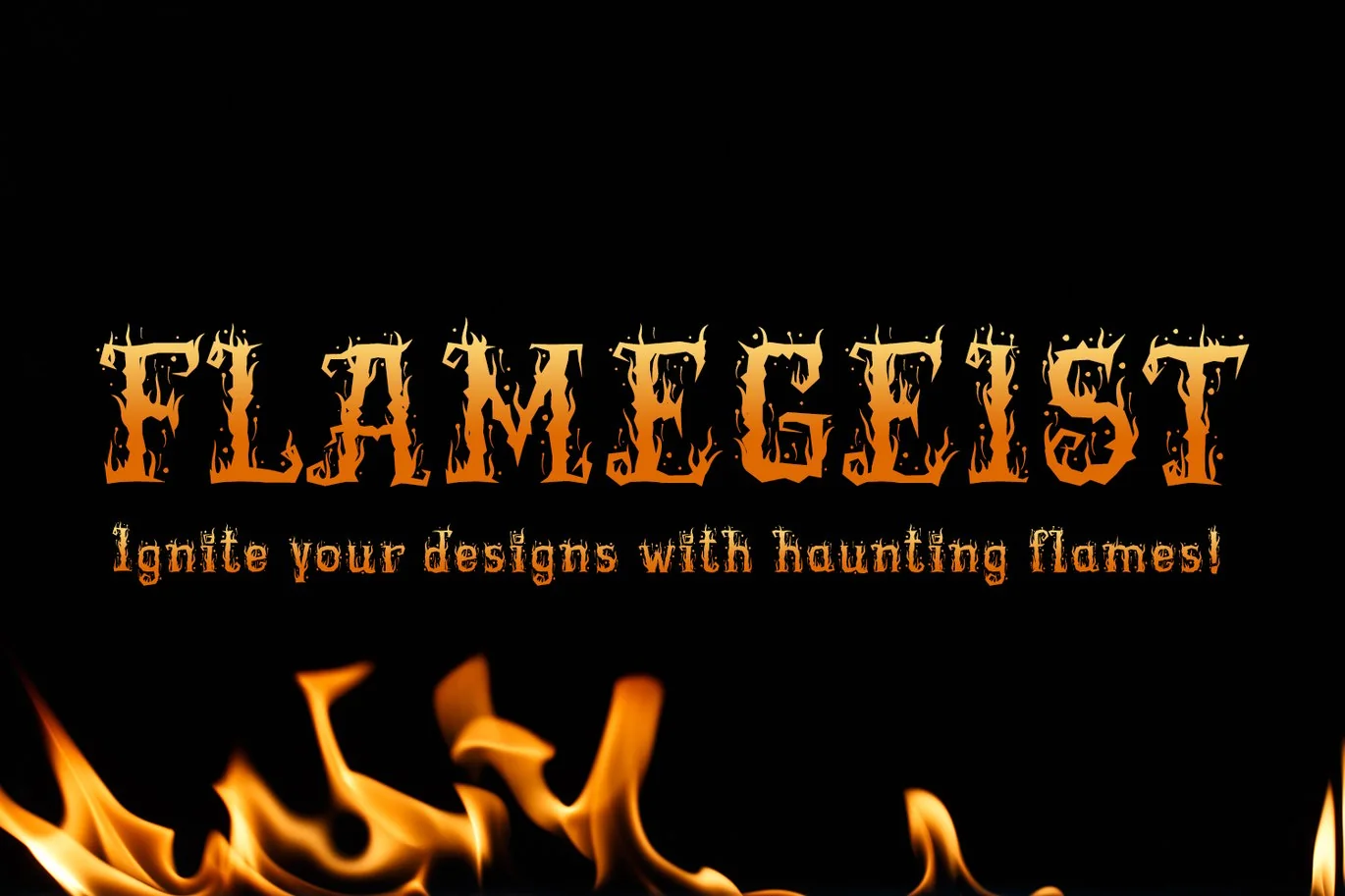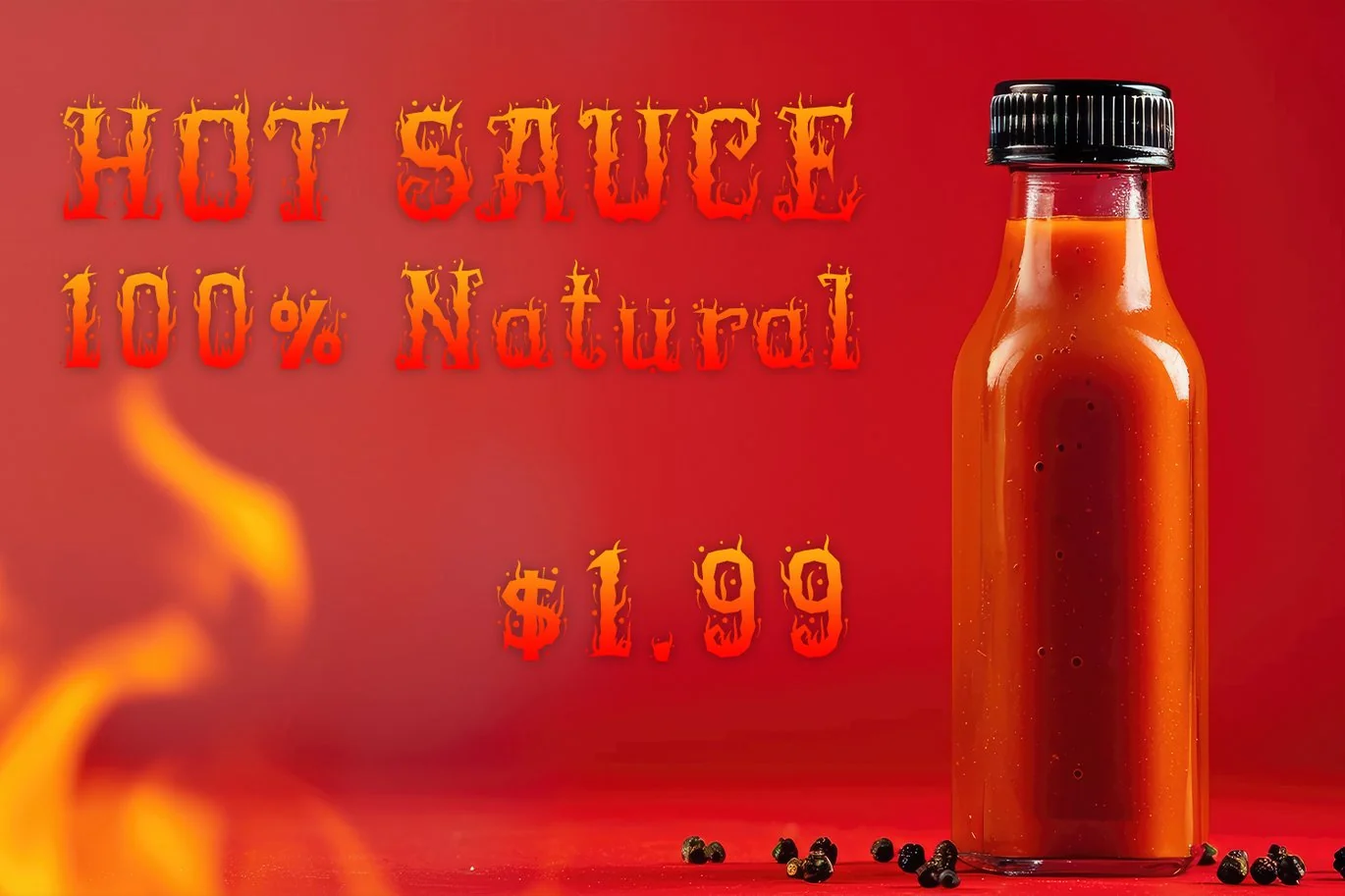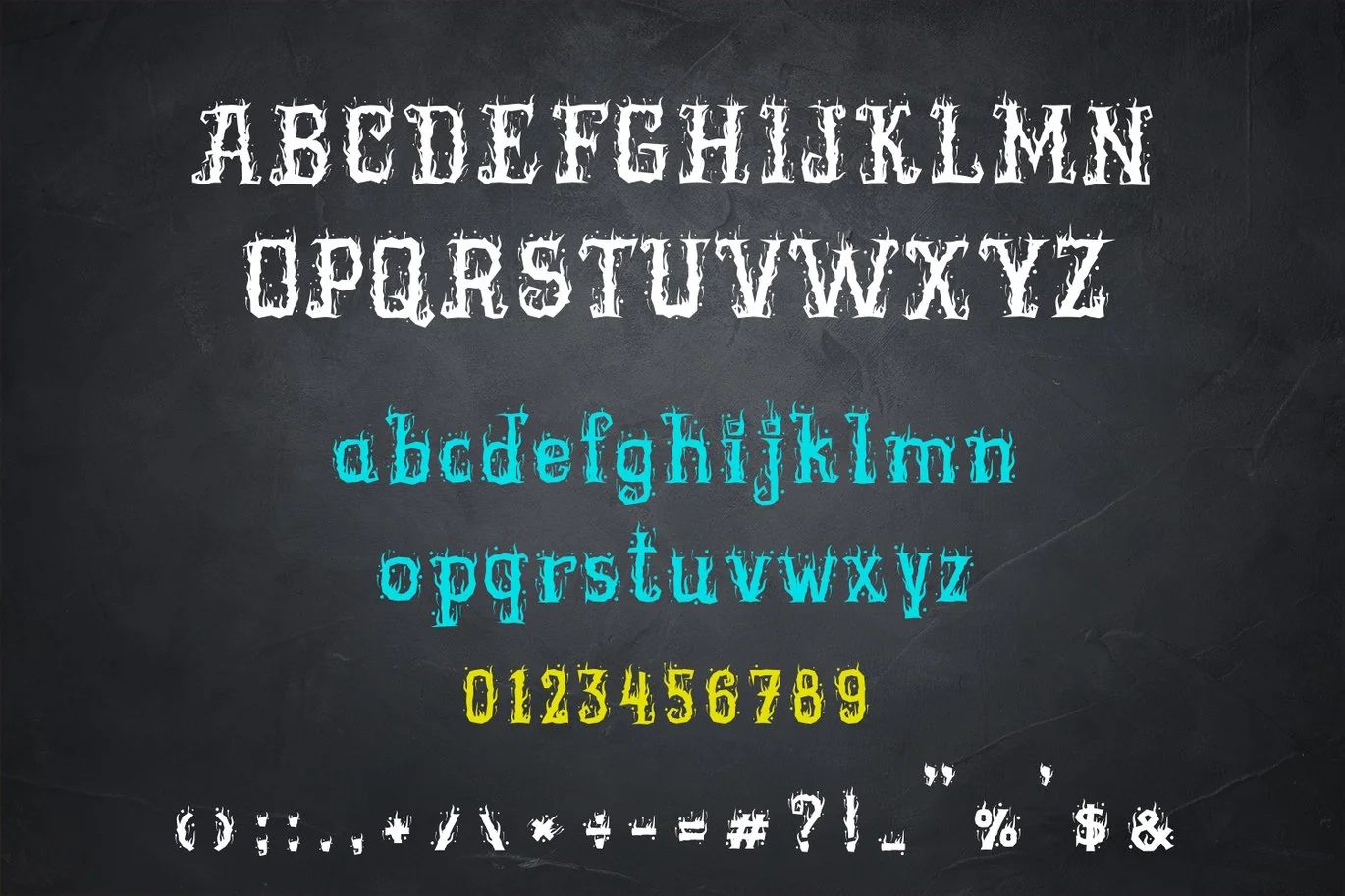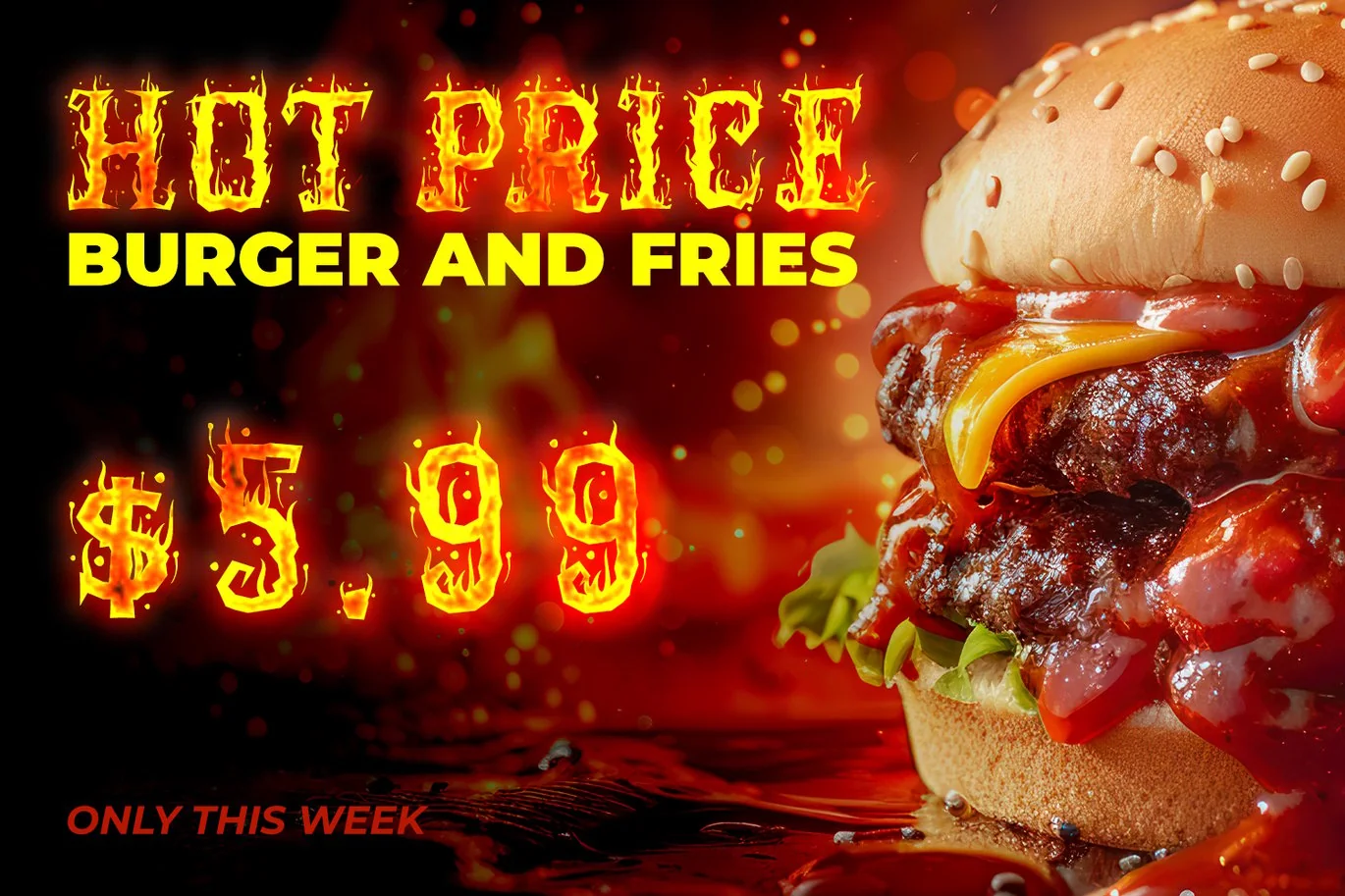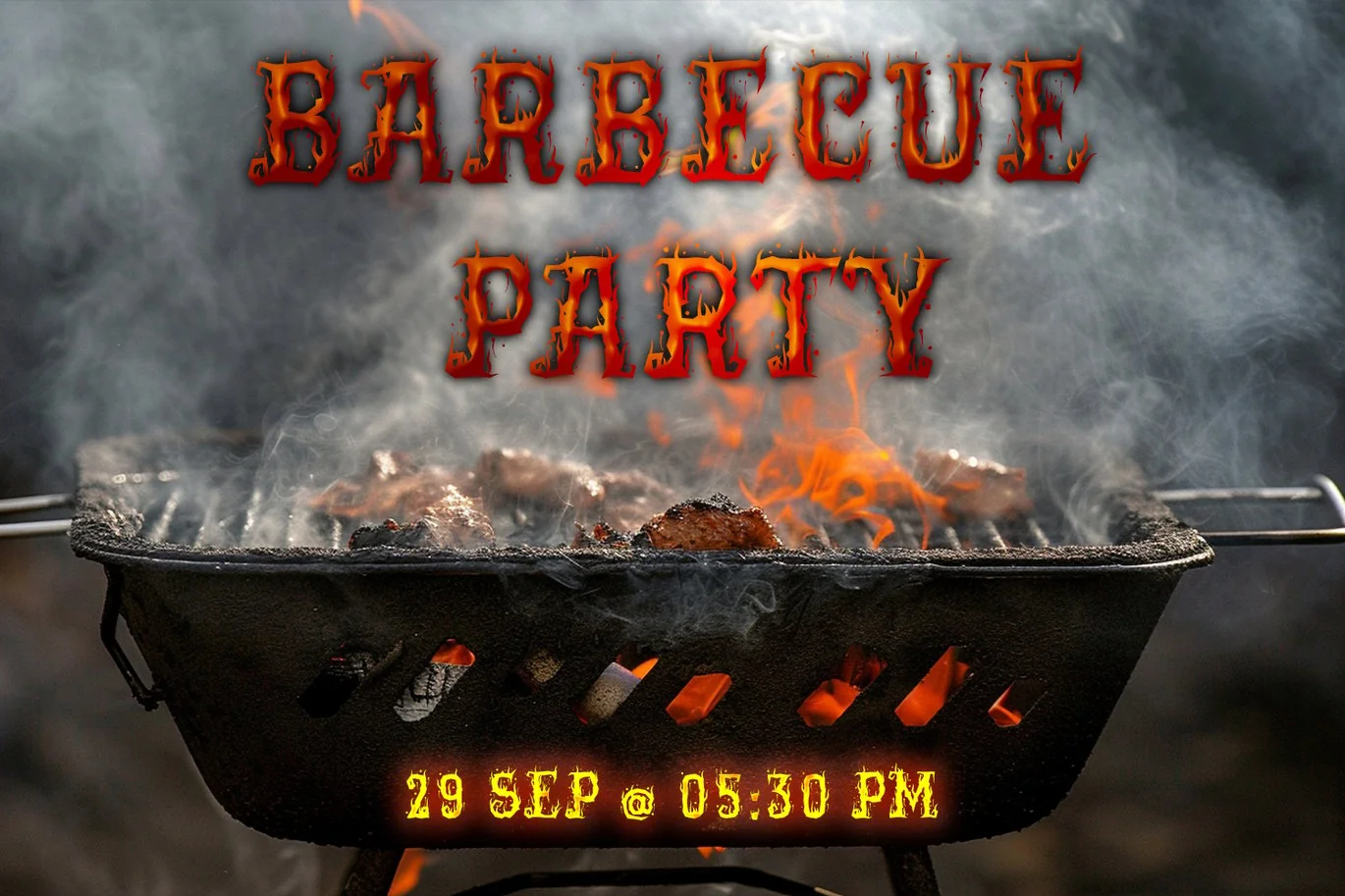
Flamegeist Font
Font Description:
Flamegeist is a hauntingly fiery font that brings a perfect blend of spookiness and intensity to your designs. Featuring flaming, jagged letterforms, this Halloween-inspired typeface is ideal for posters, BBQ restaurant branding, hot price promotions, party invitations, horror-themed graphics, and eerie digital art. Whether you’re designing for haunted events, sizzling BBQ menus, scary movie titles, or seasonal marketing campaigns, Flamegeist adds a burning, ghostly vibe that captivates attention. Fully compatible with major design tools, this font ensures high-quality, professional results. Set your creativity ablaze with Flamegeist—where fiery flair meets bold design!
- Unique letterforms